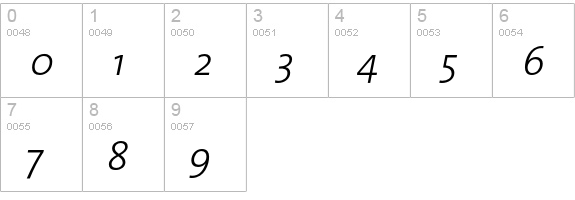
TMixLight-Italic Font Details
TMixLight-Italic is a distinctive, italic variant in the TMixLight typeface family \xE2\x80\x94 well suited to design and typography projects.
TMixLight-Italic is a stunning and elegant font that exudes a sense of sophistication and creativity. Its unique design is sure to captivate and inspire any audience, making it the perfect choice for those seeking a touch of elegance in their designs. The italic style of TMixLight adds a touch of flair and personality to any project, whether it be a logo, invitation, or website. The subtle slant of the letters creates a sense of movement and dynamism, drawing the viewer's eye and keeping them engaged. One of the best features of TMixLight-Italic is that it is completely free to download. Yes, you read that right! This incredible font is freely available to download at FontsMarket.com, making it accessible to all designers, no matter their budget or resources. With TMixLight-Italic, you can elevate your designs to new heights, adding a touch of sophistication and elegance that will set you apart from the crowd. Its versatility and timeless appeal make it a must-have in any designer's toolkit. So why wait? Download TMixLight-Italic today and let your creativity soar. With its unique style and free availability, this font is sure to become a staple in your design arsenal. Don't miss out on this incredible opportunity to enhance your projects and leave a lasting impression on your audience.